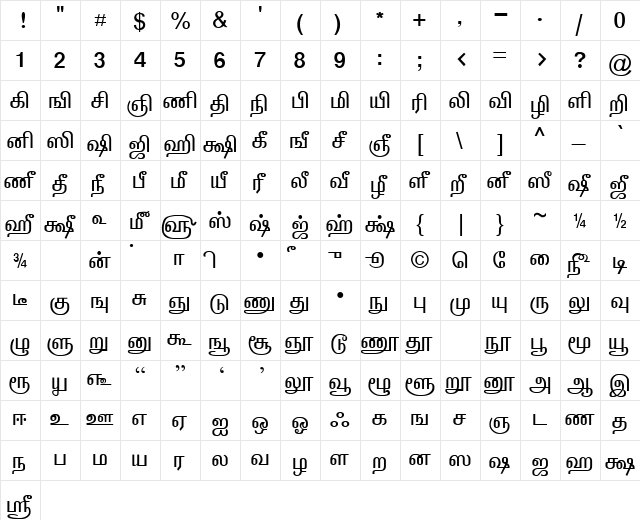
TAM_ELANGO_Panchali Normal
Design Context for TAM_ELANGO_Panchali Typeface
TAM_ELANGO_Panchali is a composed and adaptable typeface that performs quietly and consistently across a wide range of design contexts.